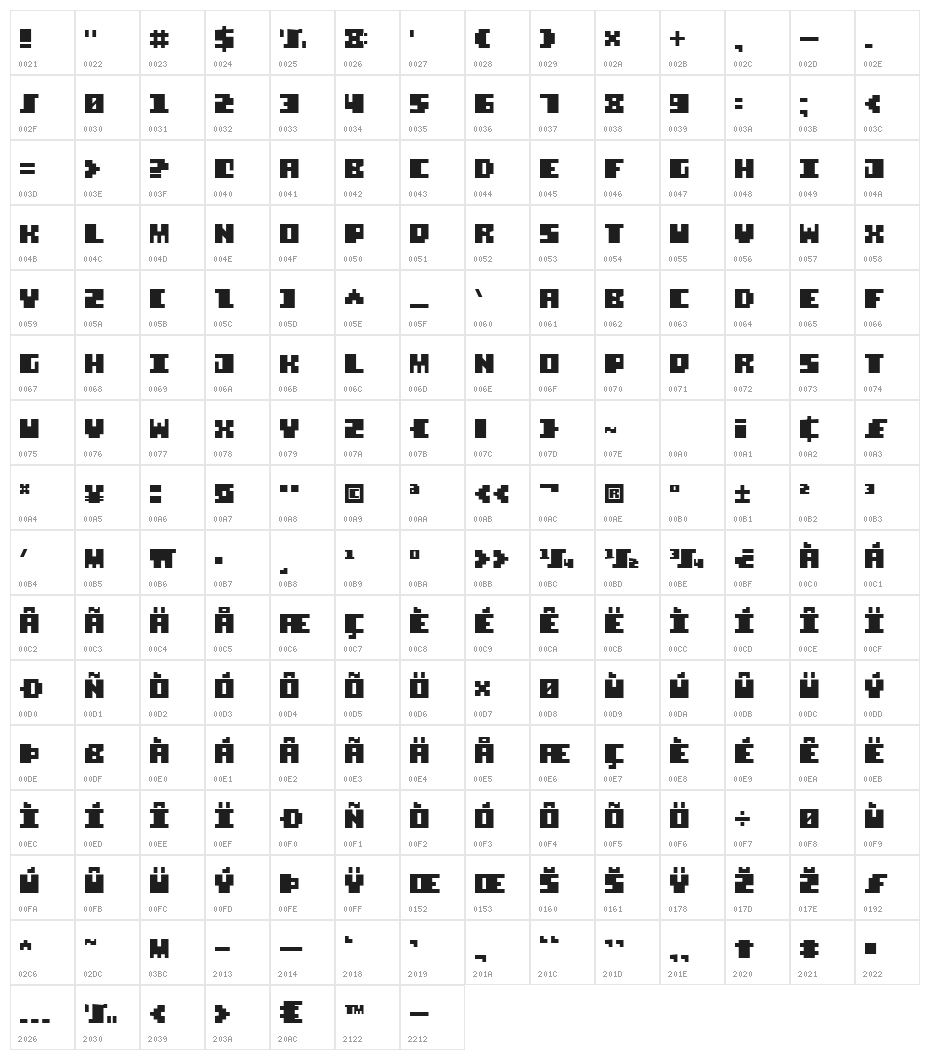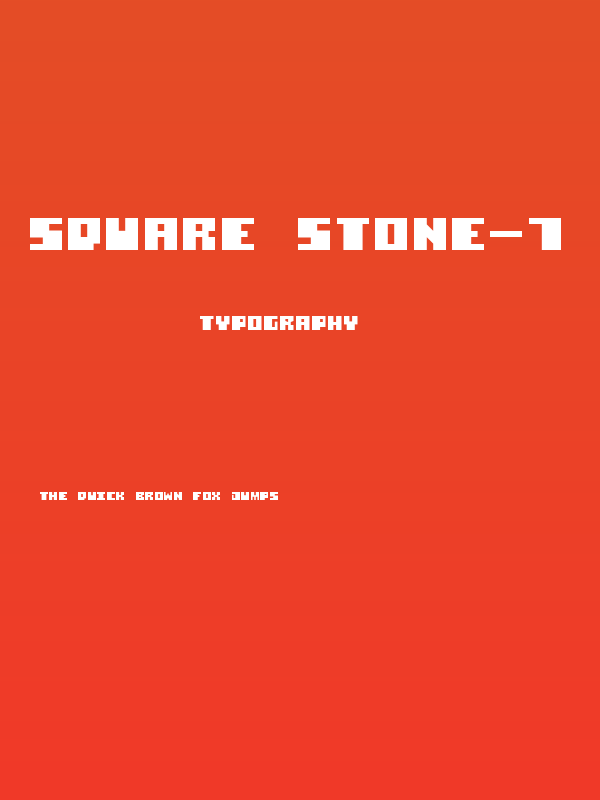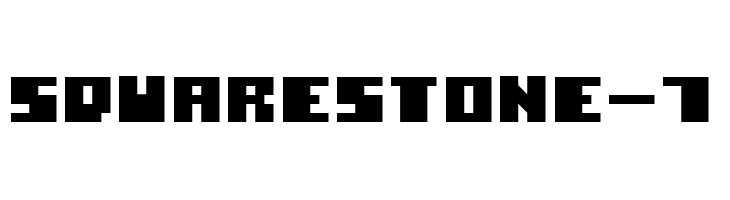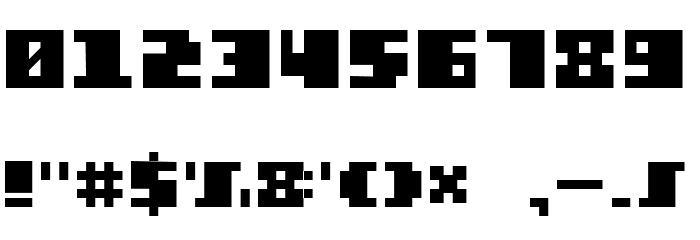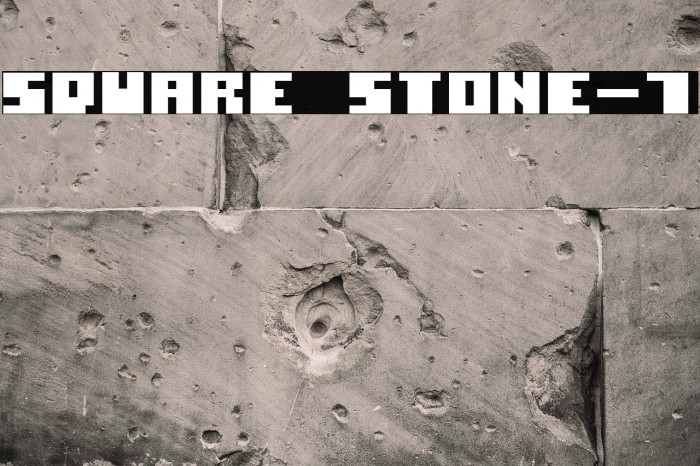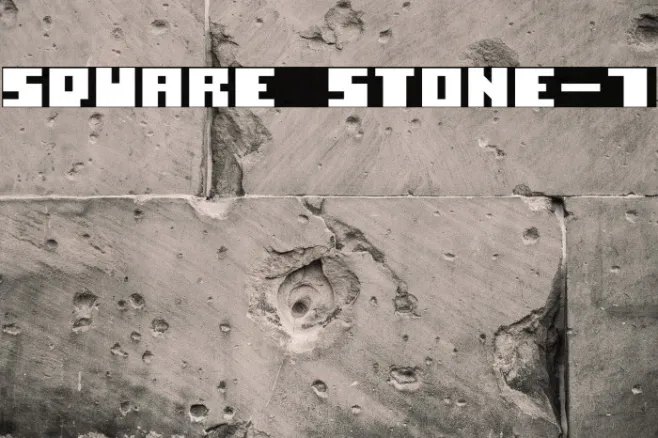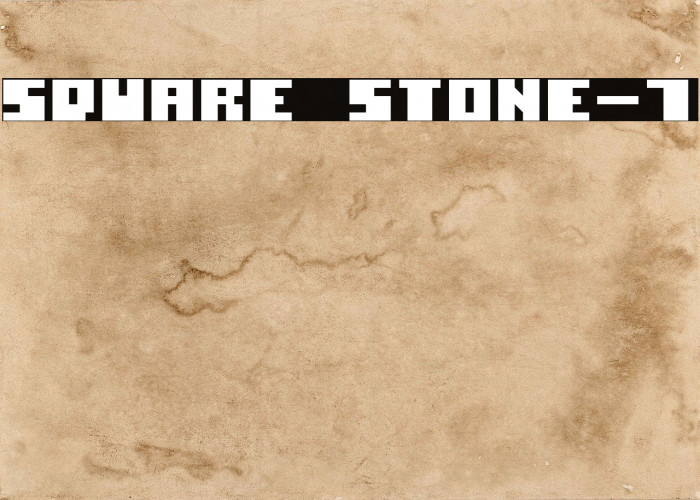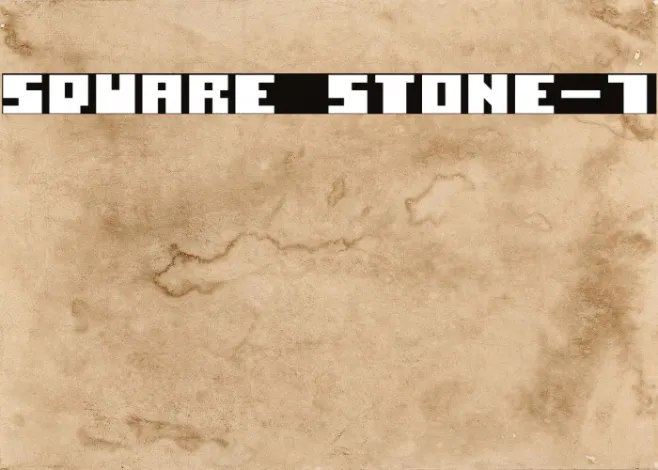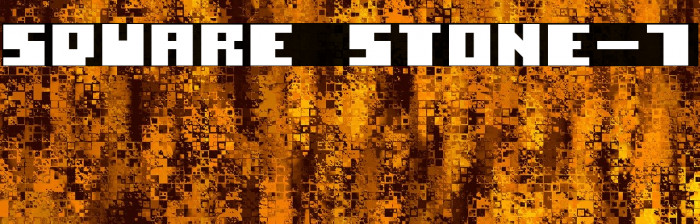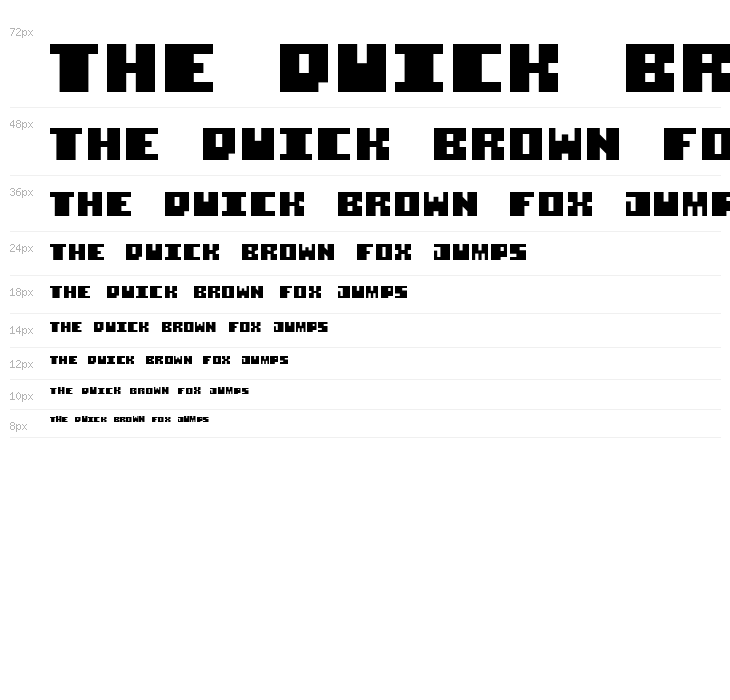
Square Stone-7 Font
Square Stone-7 Description
This font features a bold and blocky design with a distinctly geometric and angular appearance. Each character is constructed with sharp, square edges, giving it a strong and impactful presence. The uniformity of the characters creates a cohesive and structured look, making it ideal for projects that require a modern and robust aesthetic. The font's solid and heavy strokes ensure high visibility and readability, even from a distance. Its unique style is both eye-catching and memorable, suitable for making a bold statement in any design.
| Proposed Projects | Ideal for posters, logos, video game graphics, and any project needing a modern, impactful look. |